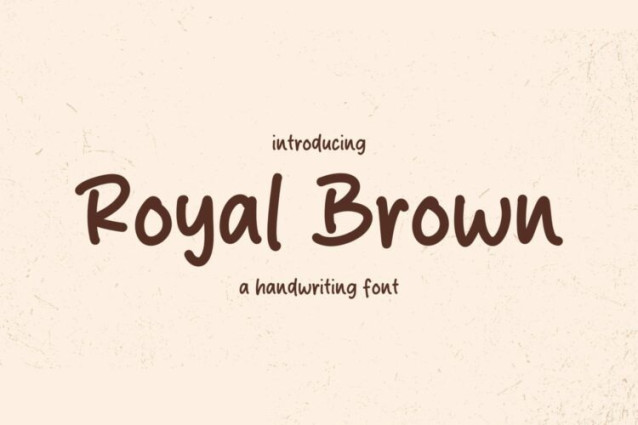
Royal Brown Font
Royal Brown Font is a simple and friendly handwritten font. Its natural and unique style makes it incredibly fitting to a large pool of designs. The only limit is your imagination!